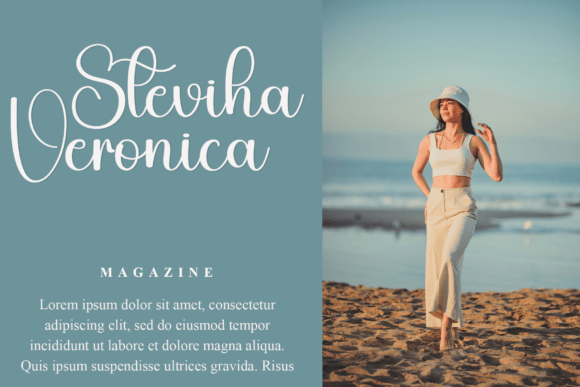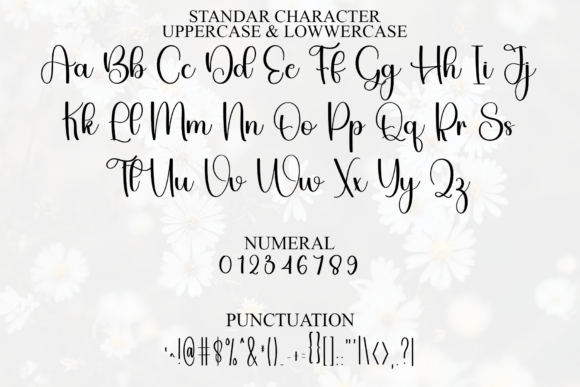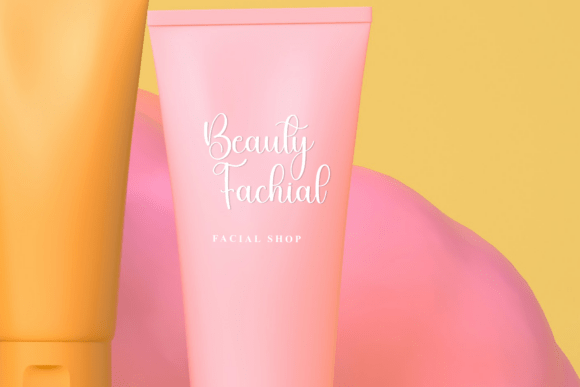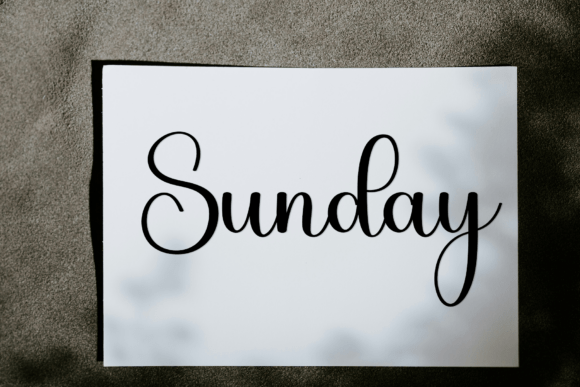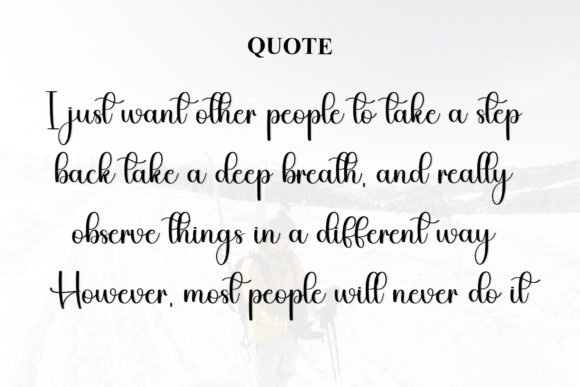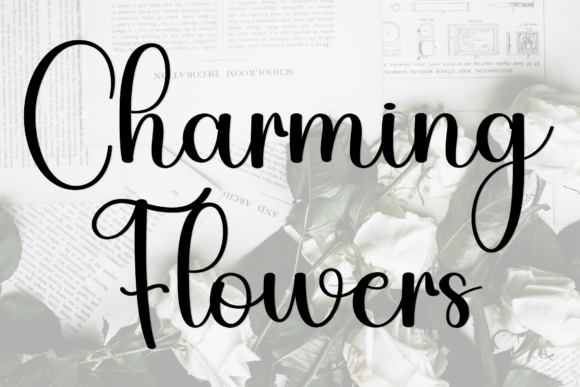
Introduction to Perfect Girly Font
Do you remember the excitement of planning your best friend’s birthday party or creating a stunning social media graphic for a special occasion? For many designers, these creative moments are what make their job truly rewarding. One key element that can elevate these projects is the right font – and that’s where the Perfect Girly Font comes in. This charming font is designed to bring a touch of warmth and friendliness to any design, making it perfect for personal projects, invitations, and social media graphics.
As a valuable design resource, the Perfect Girly Font offers a high-quality, creative solution for designers looking to add a unique touch to their work. With its round, playful strokes and hand-drawn aesthetic, this font is sure to make a lasting impression. Whether you’re working on a free download or a paid project, the Perfect Girly Font is an essential addition to any design toolkit.
Key Features of Perfect Girly Font
- High-quality design resource with a feminine touch, ideal for creative projects such as invitations, cards, and social media graphics.
- Unique characteristics include elegant swirls, cursive connections, and delicate flourishes, perfect for adding a touch of whimsy to any design.
- Designed to be versatile, making it suitable for a wide range of creative projects, from weddings and birthdays to fashion and lifestyle designs.
Honest Review: Perfect Girly Font
I recently came across the Perfect Girly Font and was excited to give it a try in my creative project. The first thing I noticed was its high quality and the variety of styles available for download.
- High-quality designs that look great on any device
- Great for creative projects, from invitations to social media graphics
⚠️ Limitations:
- May not be suitable for large-scale printing
Overall, I’m impressed with the Perfect Girly Font and would definitely recommend it as a design resource for personal or small-scale projects. Its high quality and variety of styles make it a great addition to any designer’s toolkit.
Perfect Girly Font
The Perfect Girly Font is ideal for use in feminine designs, such as:
- Fashion blogs and magazines
- Beauty and lifestyle brands
- Women’s health and wellness websites
For the best results, use the Perfect Girly Font with a transparent background and pair it with high-quality images and graphics. Experiment with different font sizes and colors to create a unique and eye-catching design.
Alternatives to Perfect Girly Font
The Great Vibes Font is a beautiful, elegant script font ideal for creative projects that require a touch of sophistication. It’s available for free download and comes with a transparent background, making it perfect for overlaying on images or videos. When to use: wedding invitations, greeting cards, or any project that needs a high-quality, elegant font.
Great Vibes Font is more cursive and flowing compared to Perfect Girly Font, which is more rounded and playful. It’s a great choice for designers who want a more refined look for their design resource.
The Carolyna Pro Font is a high-quality, modern script font that’s perfect for creative projects that need a touch of femininity. It’s available for free download and comes with a transparent background, making it easy to use as a design resource. When to use: branding, packaging, or any project that needs a sophisticated, elegant font.